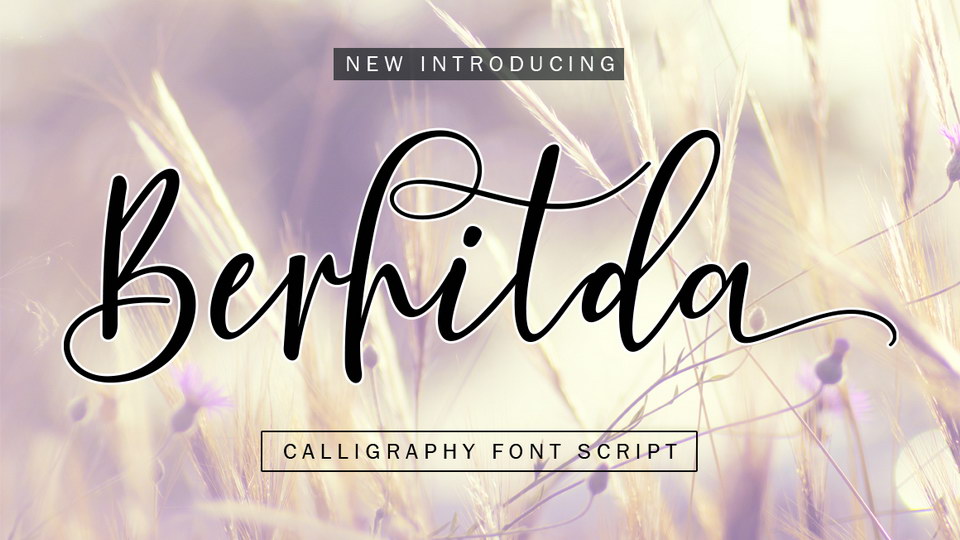
Download Berhilda Script font, a dancing modern calligraphy typeface. This font is perfect for branding, wedding invites, magazines, mugs, business cards, quotes, posters, and more.